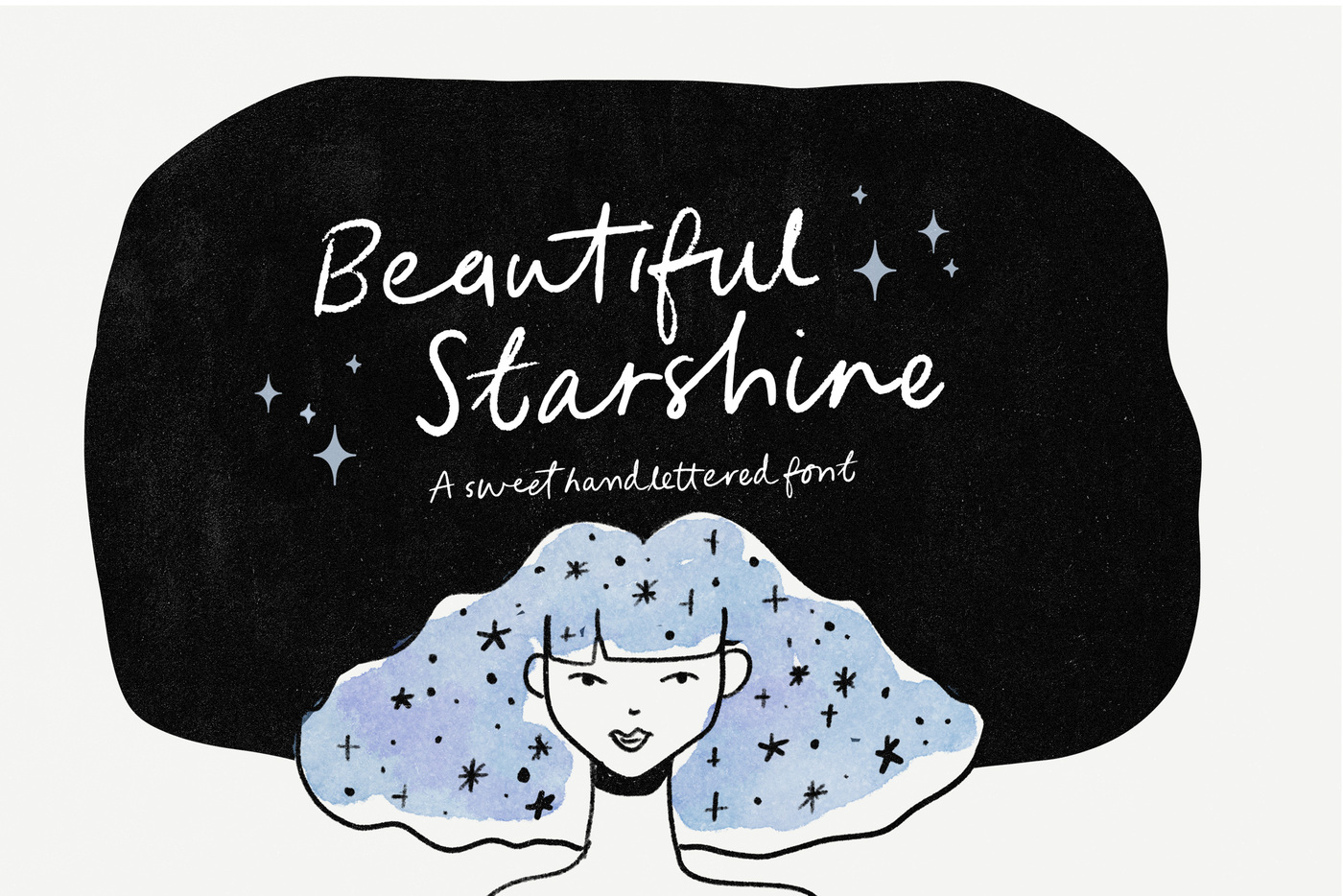
Beautiful Starshine Script Font
Make sure you turn your Opentype Ligatures on to active when you use Beautiful Starshine Script or you will miss out on the magic of watching letters change into natural combinations as you type :)
With 48 OpenType ligatures, the script looks like your own natural handwriting.
Even without your ligatures on - Beautiful Starshine still keeps its wonderfully natural quirky personality ;)
With a whimsical personality - Beautiful Starshine is perfect for any project where a casual almost quirky look is needed. Great for Illustrated works, children's books, greeting cards, recipe books, menus, whimsical branding, real looking notes and so much more :)